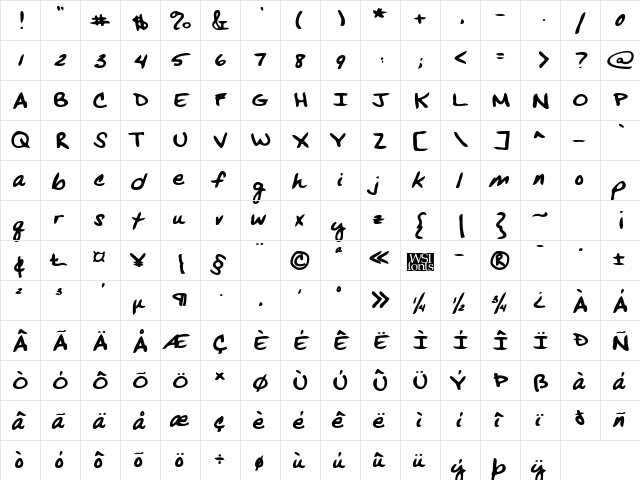
VansHand Bold
Design Context for VansHand Typeface
VansHand flows with the natural rhythm of handwritten lettering, making it ideal for designs that call for warmth and personal expression. Its bold stroke weight gives it real presence on the page.
Font Pairing: Combine VansHand with a simple geometric sans for maximum contrast — the tension between flowing curves and clean structure is a classic typographic pairing.
Pro Tip: Use VansHand for short runs of text — names, titles, or taglines. Extended body copy in script faces tires the eye quickly.